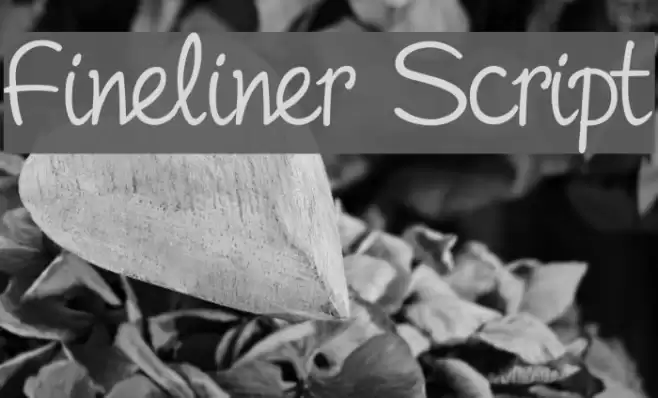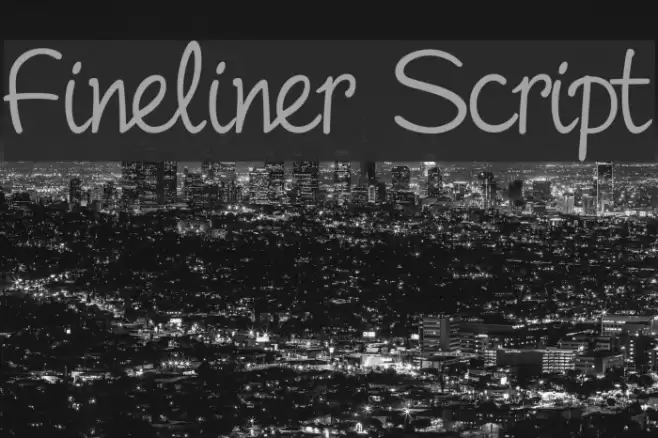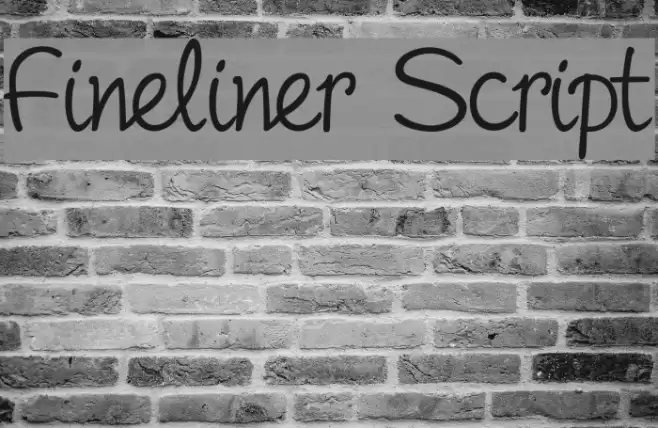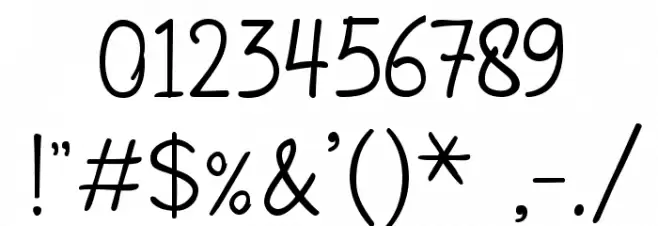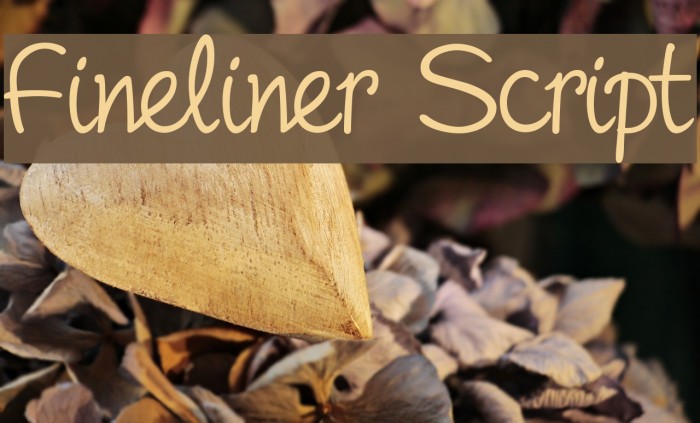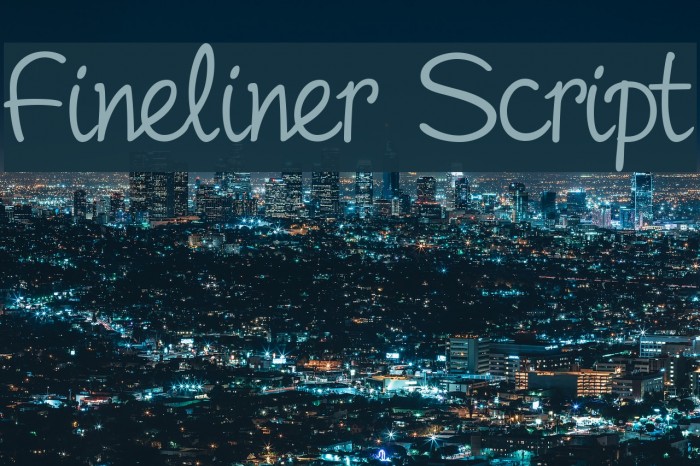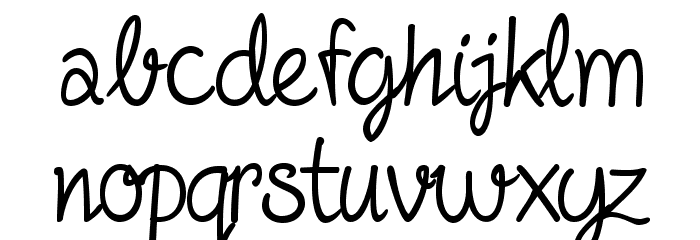
Fineliner Script Font
Fineliner Script Description
This font features a playful and casual script style, characterized by its smooth, flowing lines and slightly irregular strokes. The uppercase letters are distinct with a slight slant, while the lowercase letters exhibit a more pronounced cursive quality, enhancing the handwritten feel. The numerals are clear and consistent, maintaining the overall aesthetic of the font. Special characters are well-integrated, ensuring versatility in various text compositions. The font's design is approachable and friendly, making it suitable for projects that require a personal touch.
A playful script font with smooth, flowing lines and a casual, handwritten style from Uncategorized fonts.
- Proposed Projects: Ideal for greeting cards, invitations, personal branding, and creative projects that require a warm, personal touch.
- Overall Style: Casual, Handwritten
- Use Case: Logos, Invitations, Greeting Cards